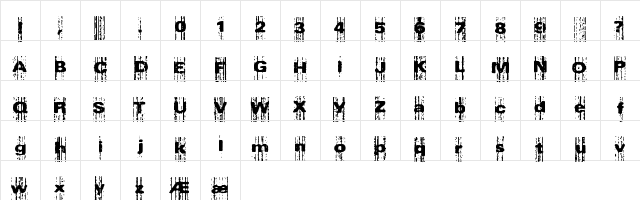
Xerox Malfunction BRK Regular
| Foundry | ƎIGMA FONTS |
| Designer | ƎIGMA FONTS - Brian Kent |
Design Context for Xerox Malfunction BRK Typeface
Xerox Malfunction BRK trades formality for fun, with bouncy, characterful letterforms that bring warmth and energy to any project.
Font Pairing: Pairs well with a rounded or humanist sans for body copy, maintaining the friendly tone without relying on Xerox Malfunction BRK to carry extended reading.
Pro Tip: Avoid using Xerox Malfunction BRK for long passages of text — it works best for headlines, labels, and short calls to action.